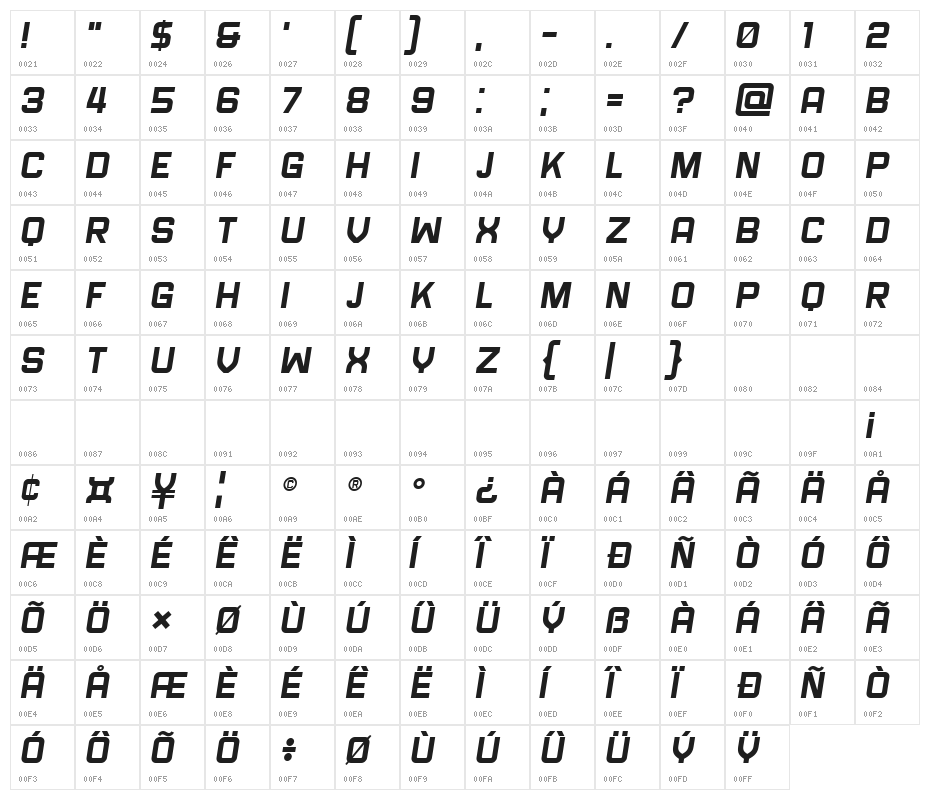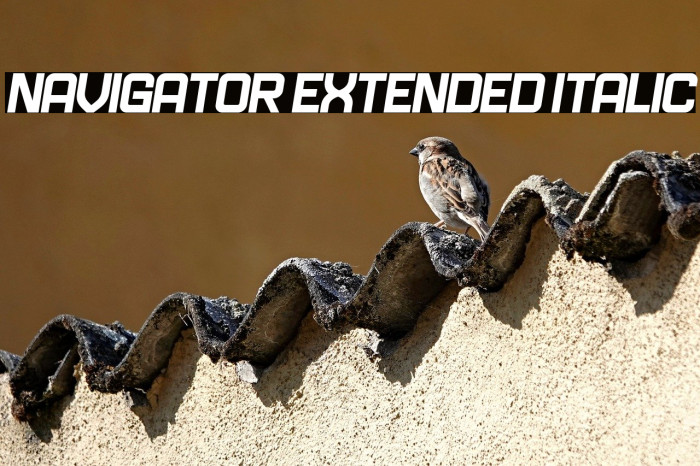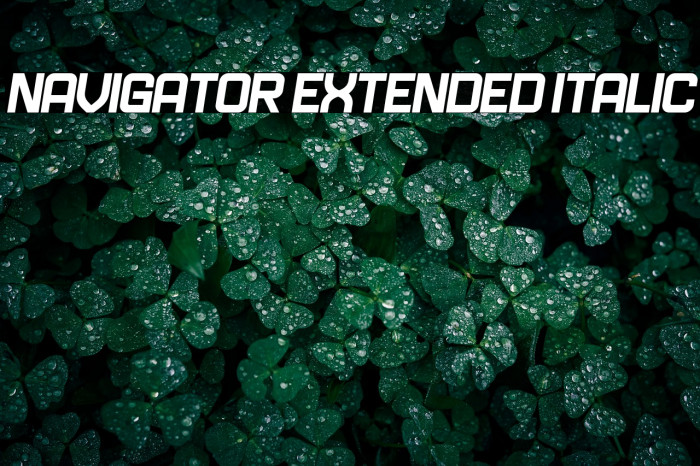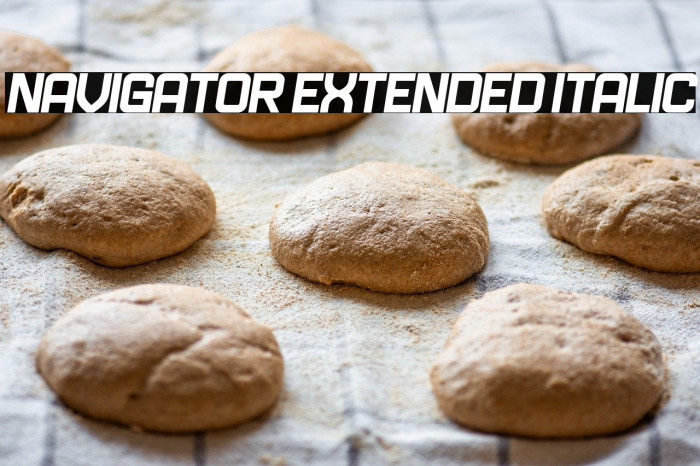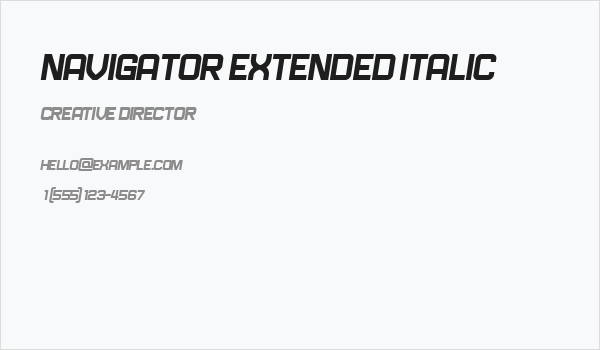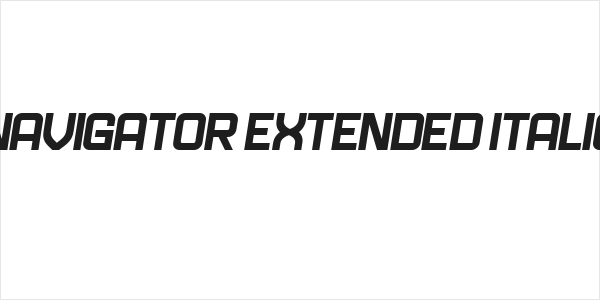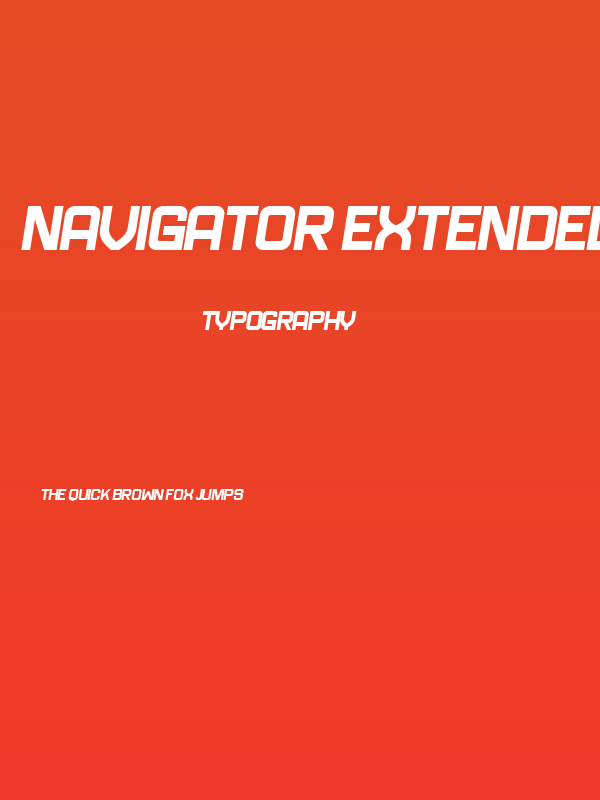
Navigator Extended Italic Font
Navigator Extended Italic Description
This font features a bold and dynamic style with an italic slant, giving it a sense of motion and energy. The characters are extended, providing a wide and spacious appearance. The strokes are thick and consistent, contributing to a strong visual impact. The design is modern and sleek, with a slightly futuristic feel. The uppercase and lowercase letters maintain a uniform width, enhancing readability. The numerals and special characters are designed to match the overall aesthetic, ensuring cohesion across all elements.
| Proposed Projects | Ideal for use in sports branding, automotive advertisements, tech company logos, and dynamic headlines. |